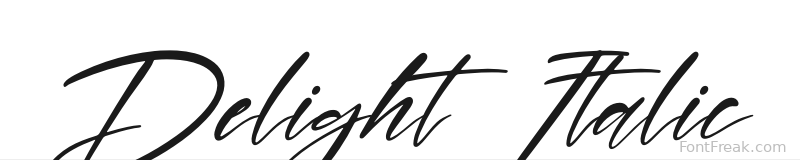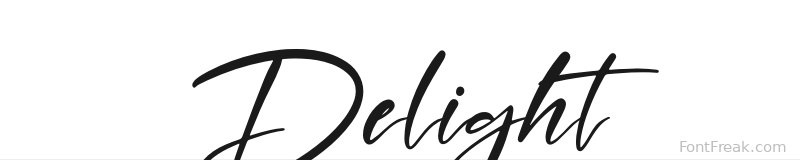
Delight Italic
Delight
About Delight Italic
Delight Italic is a stunning script font designed by Perspectype Studio, released in 2021. This font exemplifies elegance and fluidity, making it a perfect choice for various creative projects. With a graceful, flowing style, Delight Italic captures attention through its dynamic stroke weight and contrasting lines. The letterforms feature sweeping curves and intricate flourishes that enhance its decorative appeal while maintaining legibility. The spacing is thoughtfully crafted, allowing for seamless reading even in longer texts.
This font is particularly well-suited for wedding invitations, where its romantic style can set the perfect tone for a special day. It shines in event branding, such as anniversary celebrations and formal gatherings, where an air of sophistication is desired. Delight Italic is also ideal for restaurant menus, adding a touch of class to the dining experience, and for use in marketing materials, such as flyers and brochures, that aim to convey a sense of luxury and refinement. Additionally, content creators will find Delight Italic a delightful choice for social media graphics, helping to elevate their visual storytelling.
Targeting graphic designers, small business owners, and content creators, Delight Italic offers versatility and charm. Its freeware license makes it accessible for anyone looking to enhance their projects without incurring costs. The font stands out not only for its aesthetic qualities but also for its ability to evoke emotion and create connection through beautifully crafted typography. Whether you’re designing for print or digital platforms, the Delight Italic font free download provides an elegant solution that will undoubtedly impress your audience. Embrace the beauty of Delight Italic, and let it transform your creative endeavors.